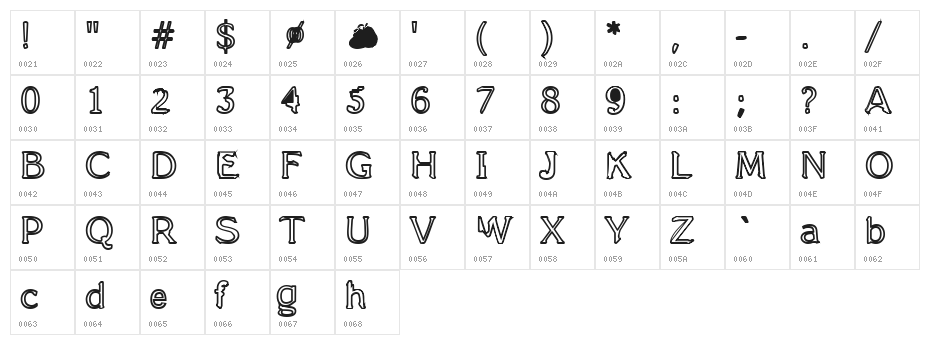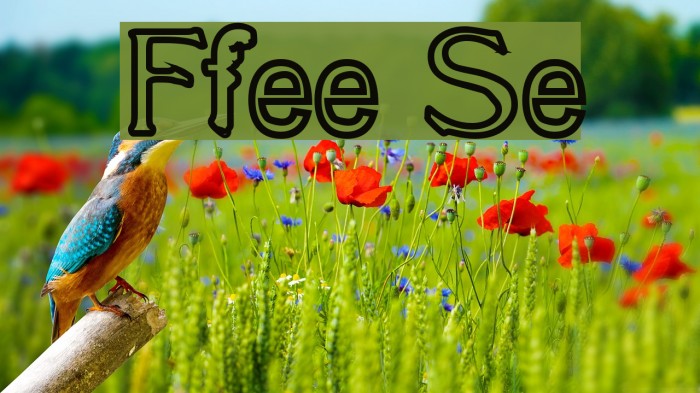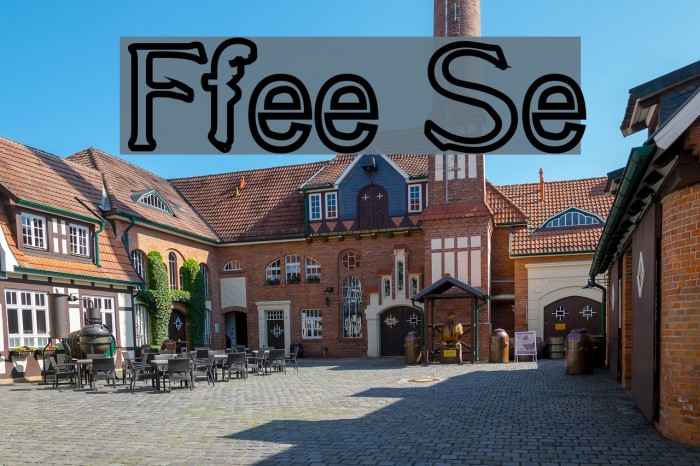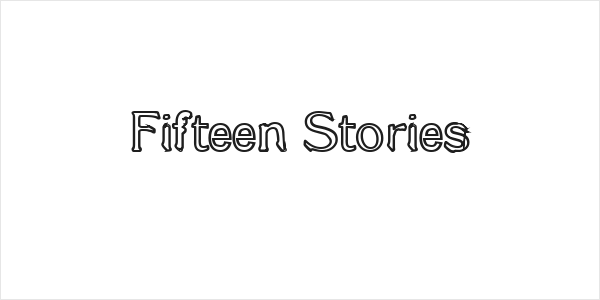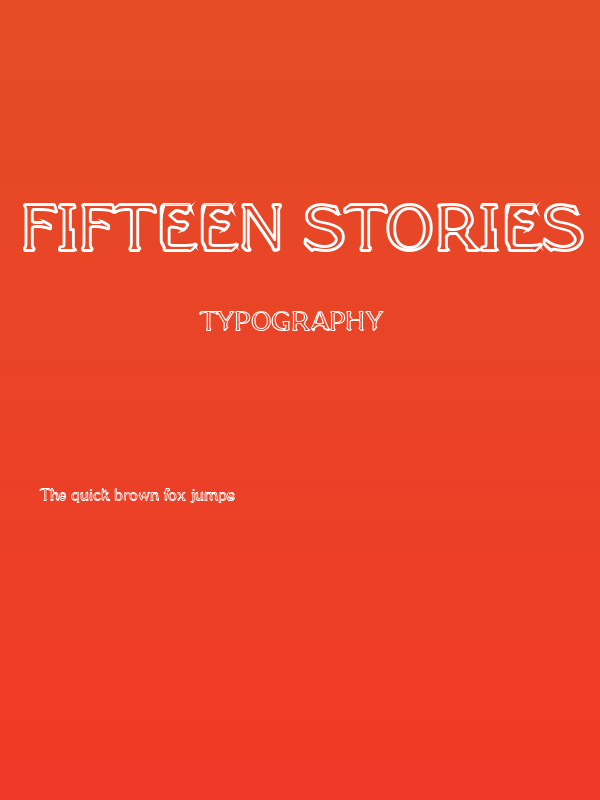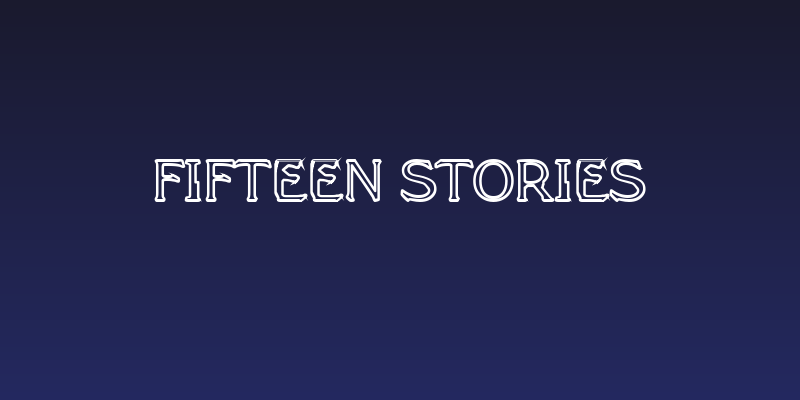
Fifteen Stories Font
Fifteen Stories Description
This font features a unique, playful design with a bold outline and a hollow interior, giving it a three-dimensional effect. The characters are uppercase and lowercase alphabets, numerals, and a variety of special symbols. The strokes are consistent in width, creating a uniform appearance across all characters. The font has a whimsical and artistic flair, making it suitable for creative and informal projects. The spacing between characters is moderate, ensuring readability while maintaining its decorative style. The overall design is eye-catching and modern, ideal for capturing attention in headlines or logos.
| Proposed Projects | Ideal for creative projects such as posters, children's books, playful branding, and eye-catching headlines. |